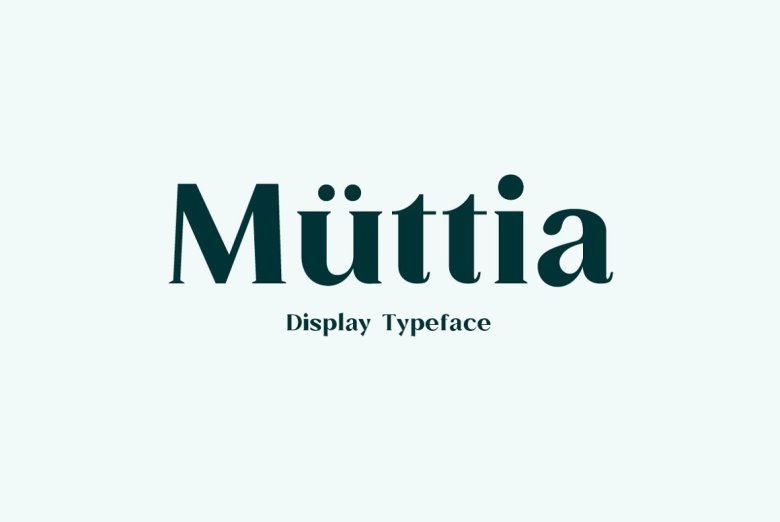
Muttia Font
It is Muttia, a beautifully distinctive serif font, that will add instant elegance to any branding, advertising, logo, packaging, title or headline. No need for excessive decorative features; merely employ the varied fonts in different sizes and layouts, and you will be holding a piece of real art!
Muttia Serif Font